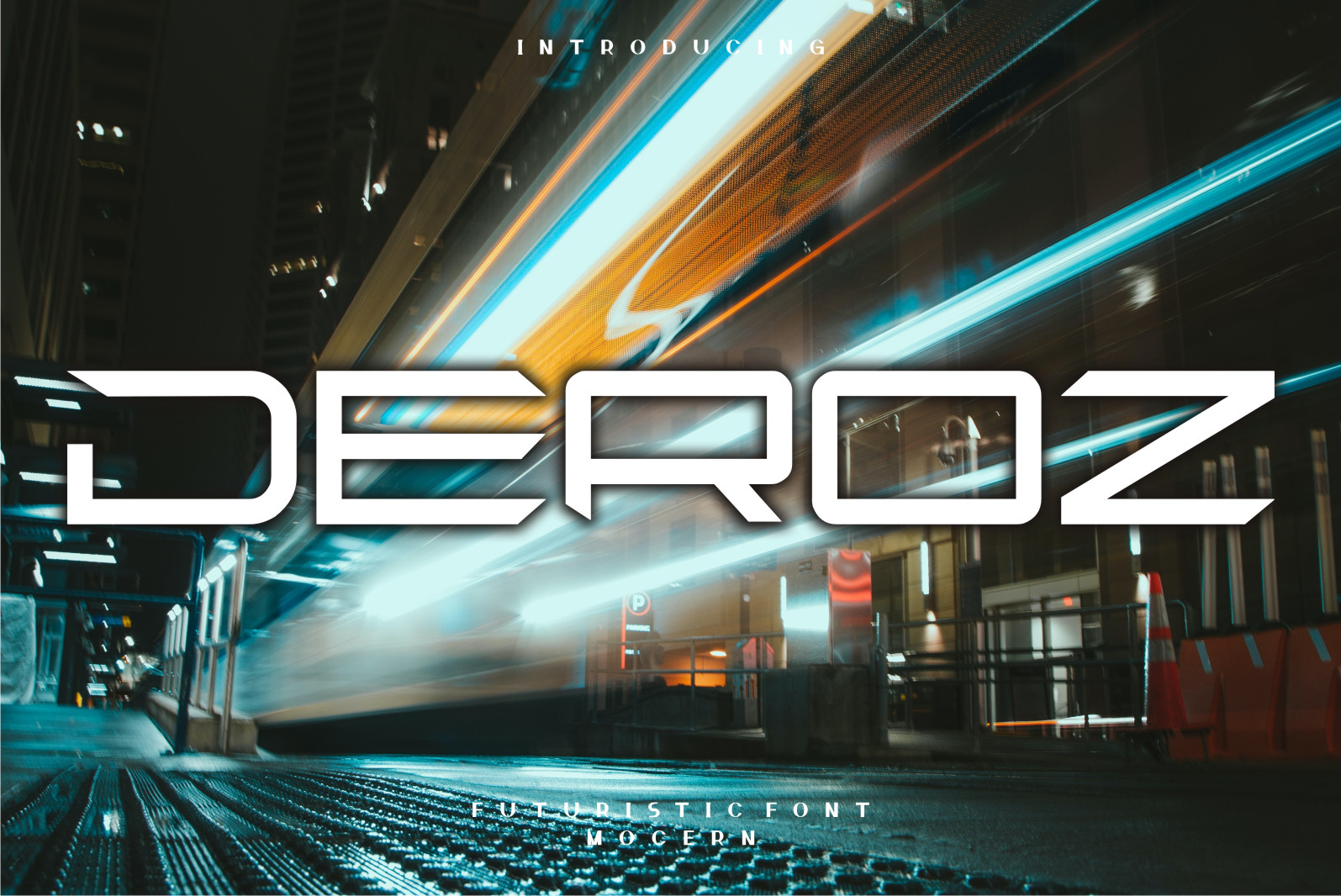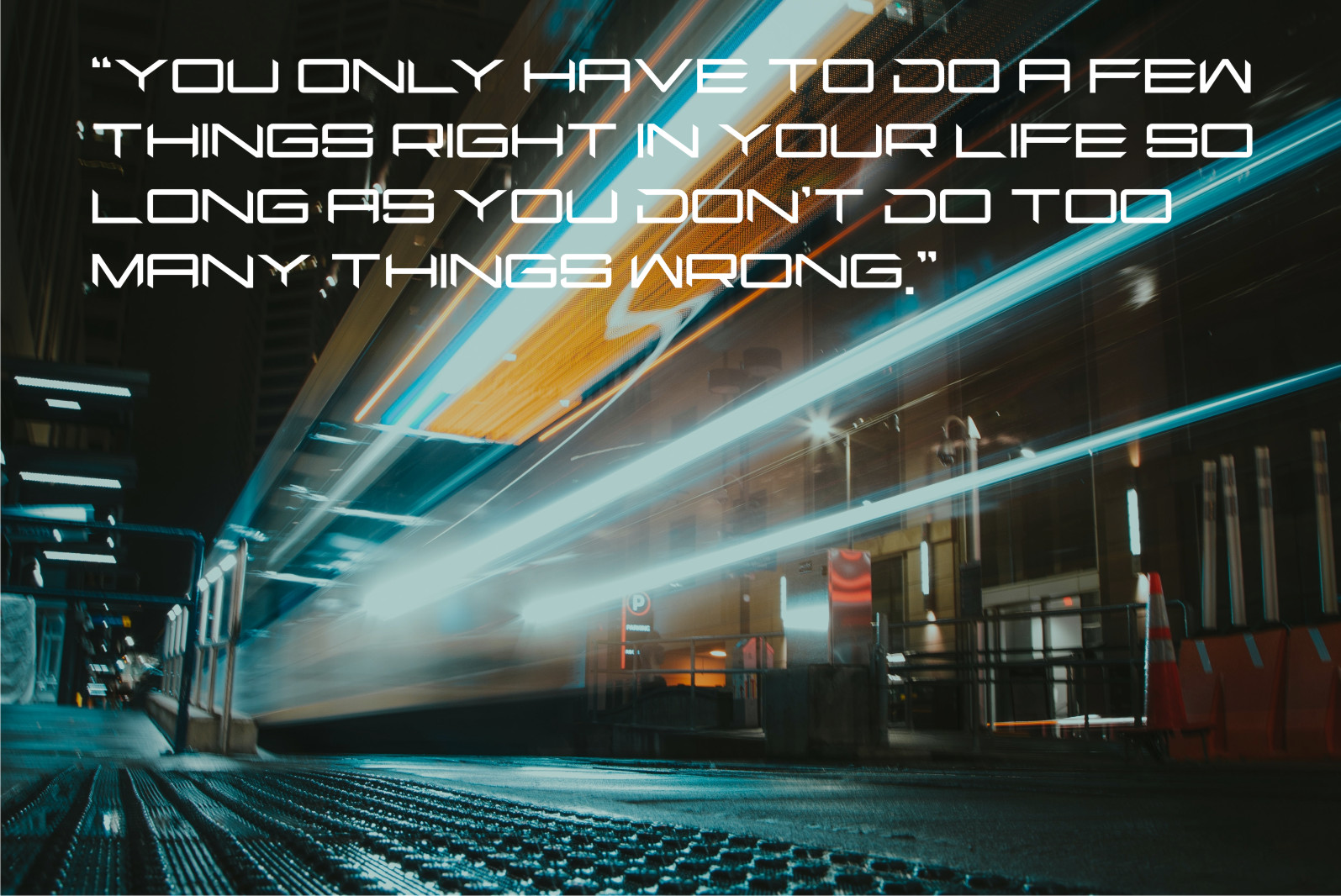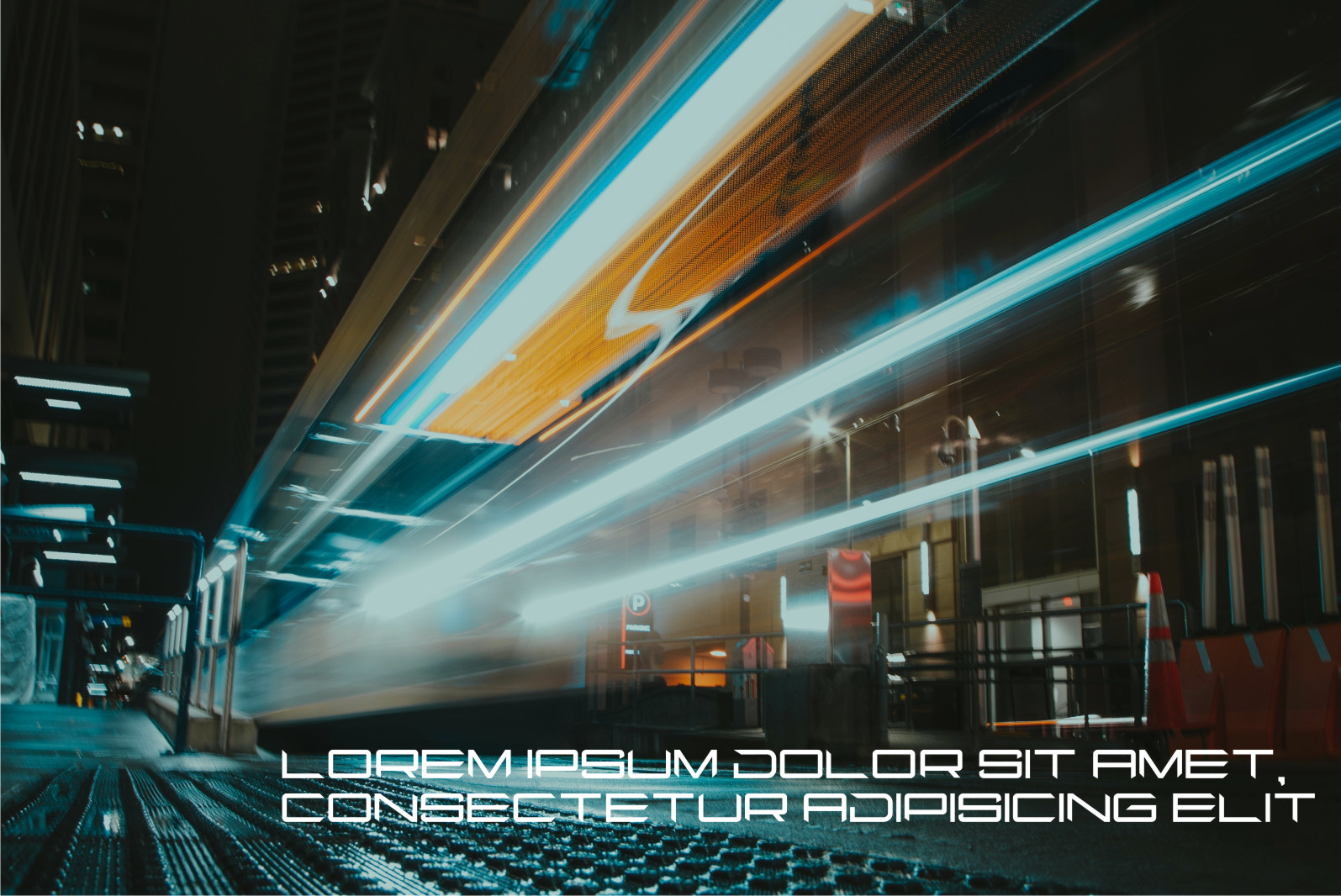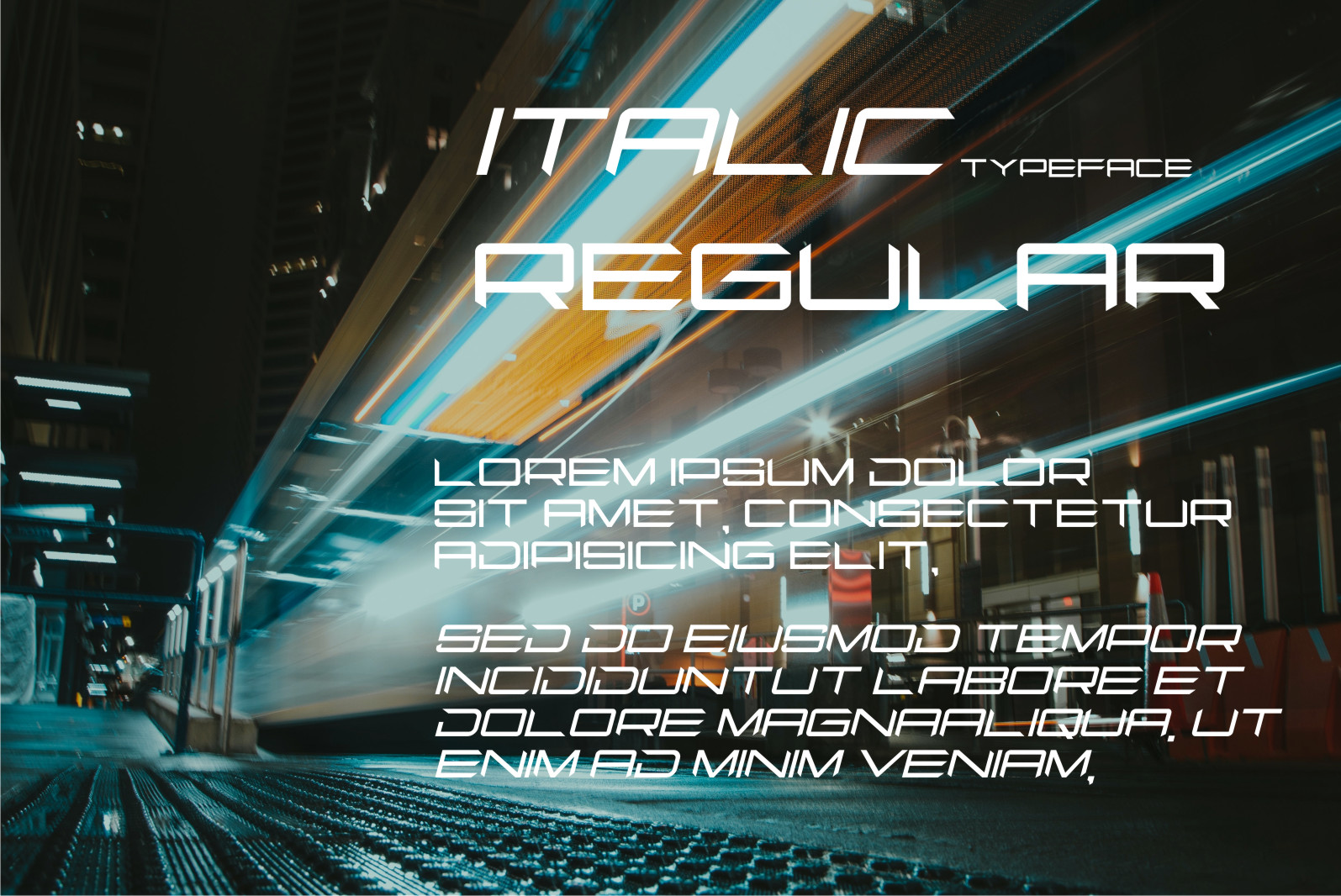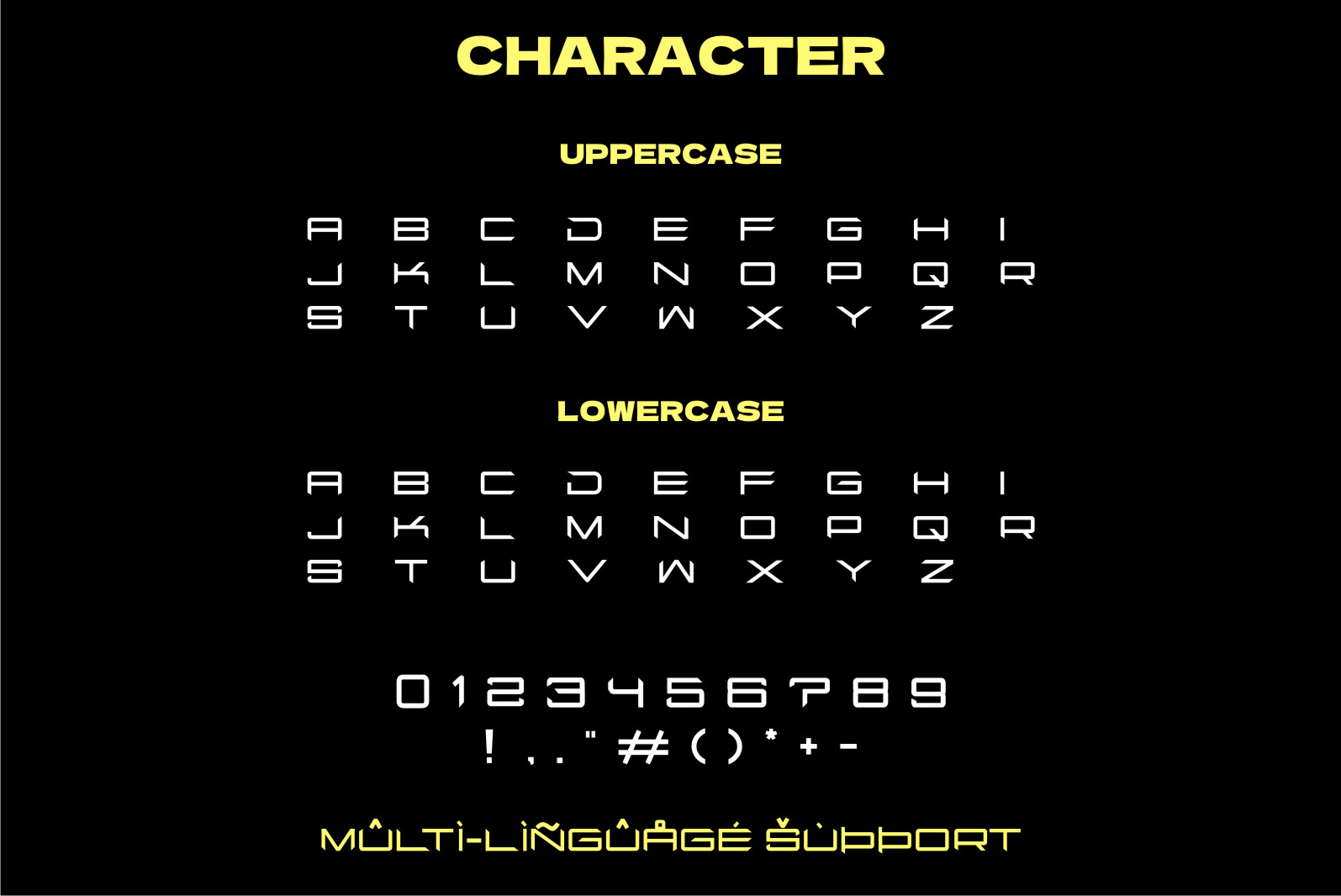
Deroz Font
Deroz Display Font
This is a cool and robotic-styled display font. This font is ideal for writing web designs, business cards, or pretty much anything else that requires a futuristic touch.